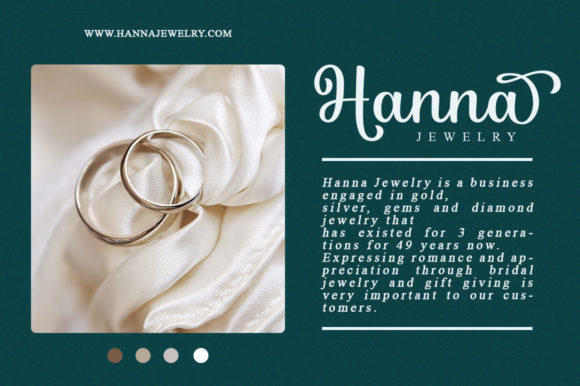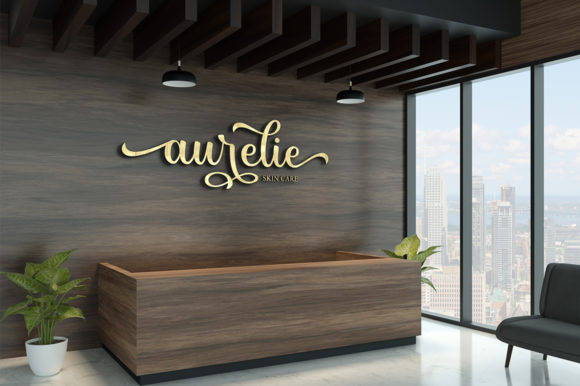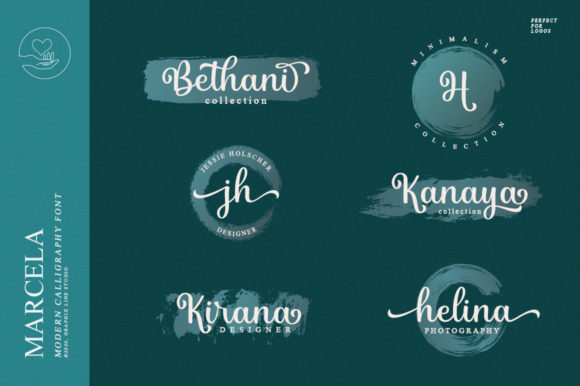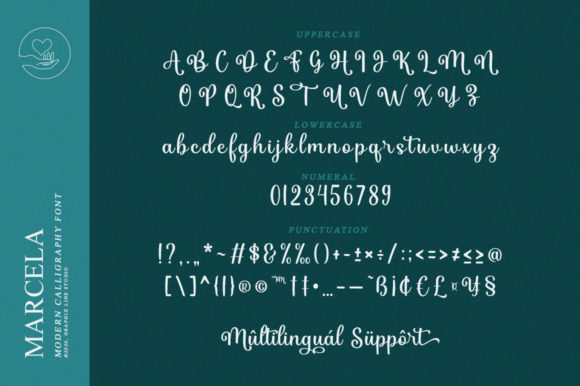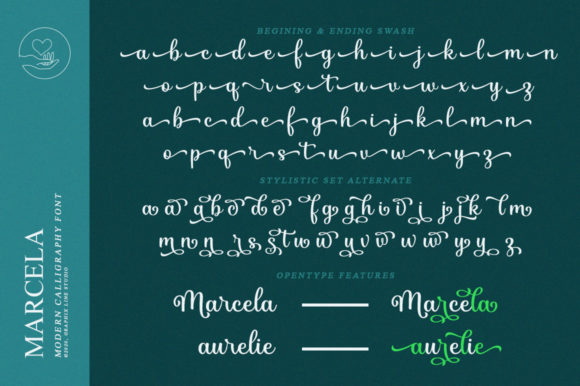
Marcela Font
About Marcela Font
Marcela is an elegant and flowing handwritten font. This font is PUA encoded which means you can access all of the glyphs and swashes with ease!